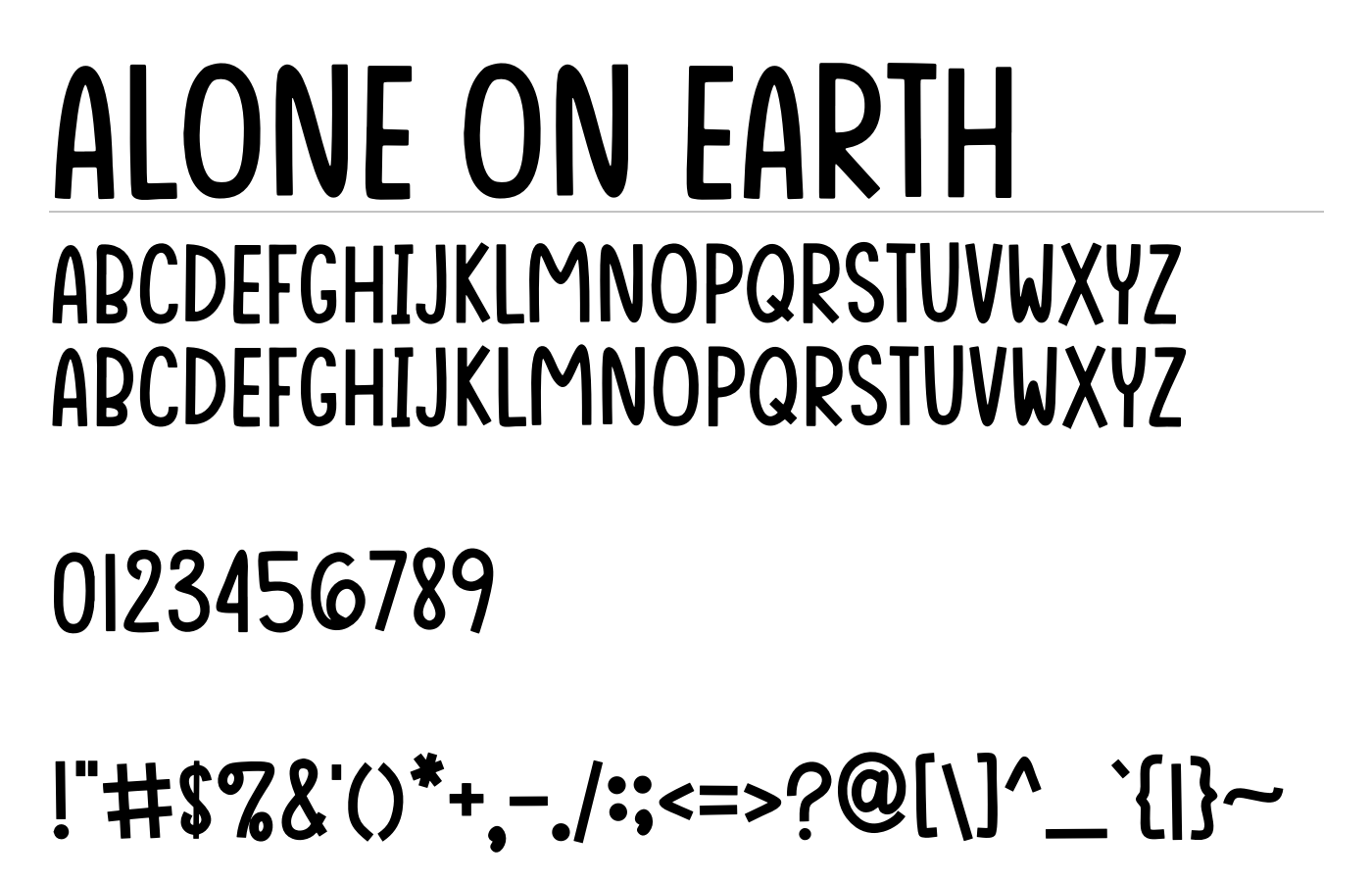
Alone On Earth is a playful, hand-drawn sans serif font that features narrow, tall letterforms with a casual, slightly irregular style. Its light weight and open spacing give it an approachable, friendly feel, making it ideal for creative projects, informal branding, and youth-oriented designs where a personal, quirky touch is desired. This font works well in headlines, logos, and packaging that seek a modern yet whimsical vibe.
Alone On Earth Font
About Alone On Earth Font
| Font family | Alone On Earth Font |
| Designer | The Docallisme |